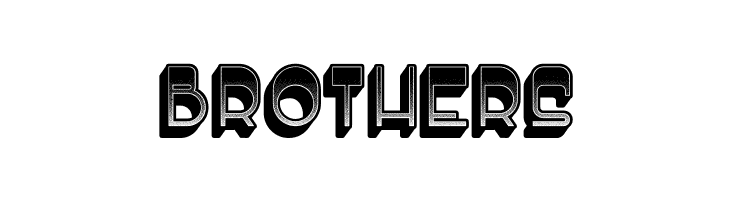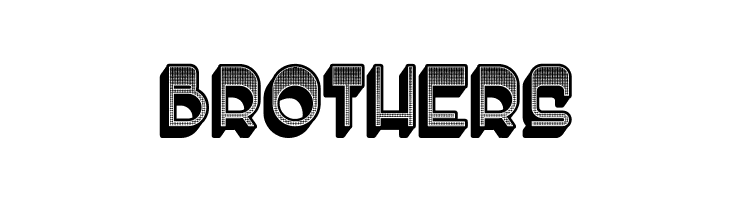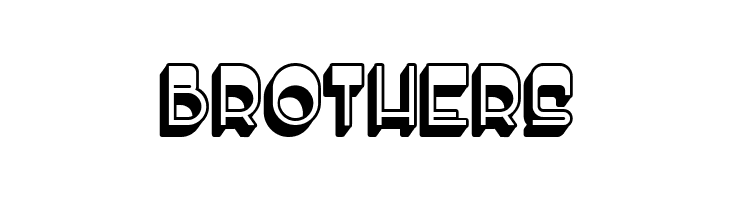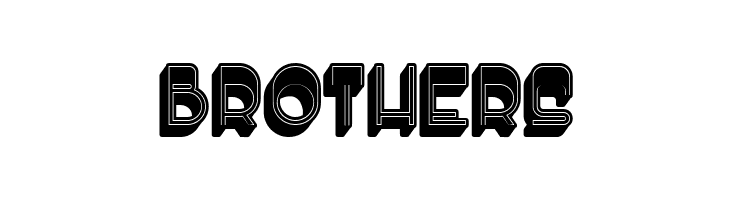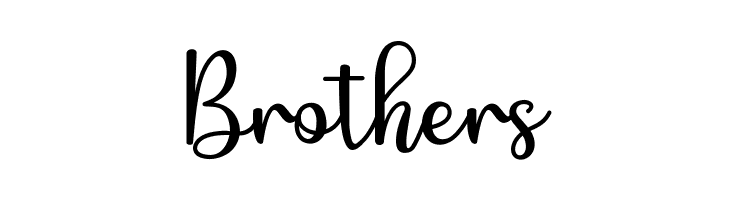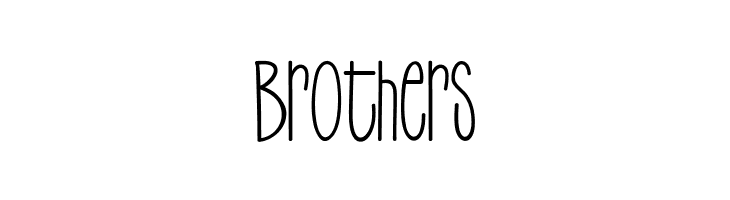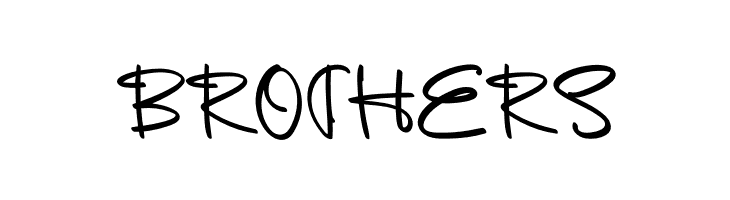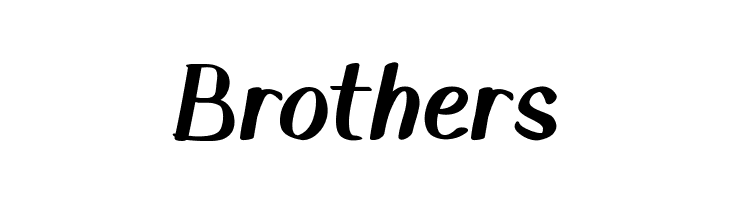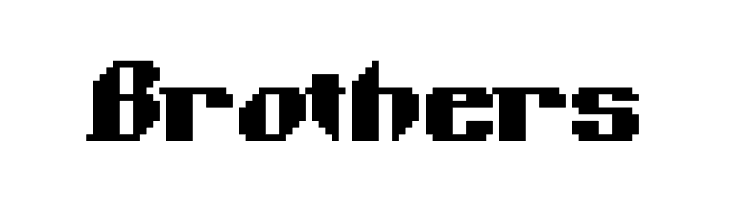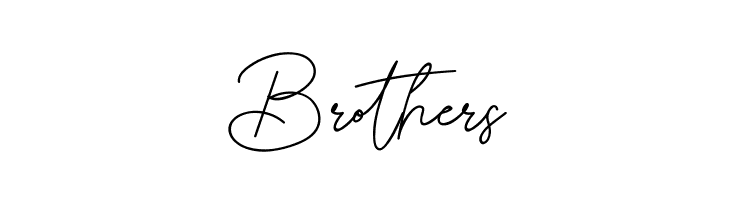
A bold, playful font with dynamic, brush-like strokes and high contrast.
A tall, narrow, and playful font with consistent stroke width.
A playful, hand-drawn font with tall, narrow characters and a whimsical style.
A bold, playful sans-serif font with rounded, cartoonish letterforms.
A playful, handwritten font with a casual and dynamic style.
A dynamic and elegant script font with bold, flowing letterforms.
A bold, Gothic-style font with intricate, angular lines and ornate serifs.
A geometric, angular font with a modern and structured appearance.
A modern, geometric typeface with rounded edges for a friendly look.
A bold, elegant script font with flowing curves and ornate flourishes.
A bold, geometric font with sharp angles and a modern, edgy style.
A charming script font with a handwritten, flowing style.
A playful and elegant script font with a handwritten touch.
An elegant script font with smooth, connected letters and decorative flourishes.
A stylish and elegant script font with fluid, connected letters and a calligraphic flair.
A bold, angular font with a retro, digital aesthetic.
A playful, bold font with rounded, chunky letters and a whimsical style.
A bold, geometric font with a filled, 3D appearance and sharp angles.
A bold, hollow, 3D-effect font with a modern and dynamic style.
A bold, geometric font with a 3D effect and textured grid pattern.
A bold, 3D geometric font with shadow effects and inline details.
A cursive, handwritten-style font with smooth, flowing strokes.
A bold, geometric font with sharp angles and a blocky, futuristic style.
A whimsical and artistic font with curvy, fluid strokes and dynamic character design.
A dynamic script font with elegant curves and a modern classic feel.
A hand-drawn, whimsical font with irregular strokes and a casual feel.
A sleek, minimalist font with thin, elongated letterforms and a modern aesthetic.
A modern, minimalist font with tall, narrow characters and thin strokes.
A sleek, italic font with elongated, thin characters and a modern aesthetic.
A sleek, italicized font with thin, elongated characters for a modern look.
A bold, cursive font with dynamic strokes and a modern, artistic flair.
A stylish, elegant script font with a modern handwritten feel.
A bold, dynamic script font with a handwritten, expressive style.